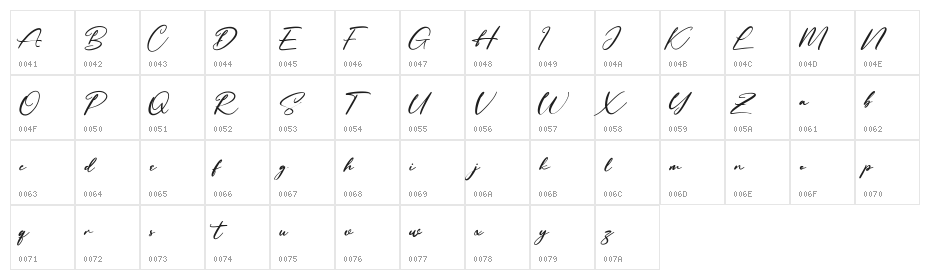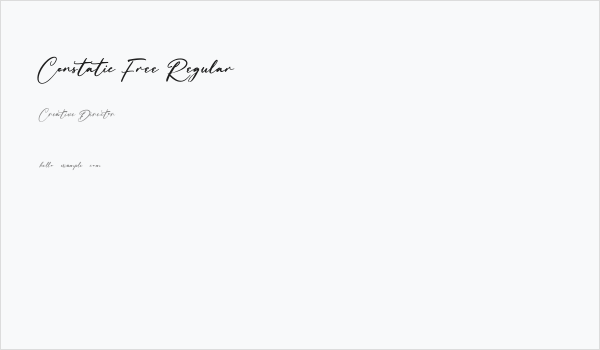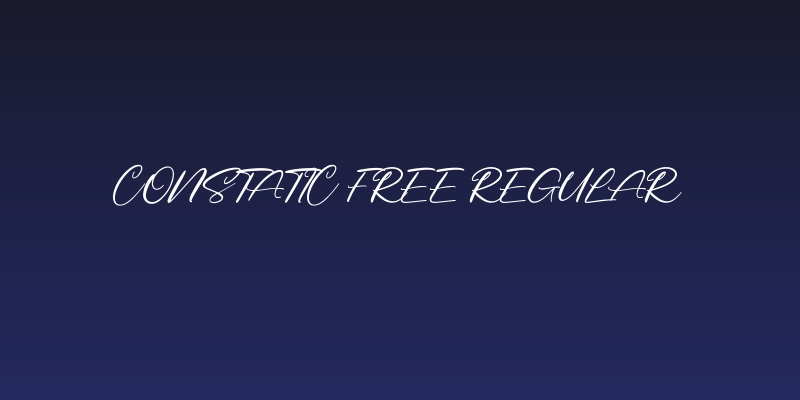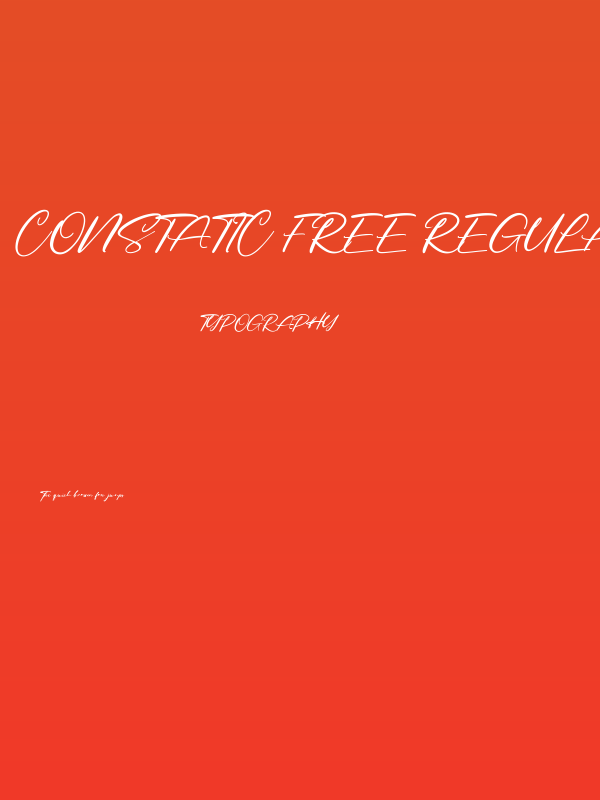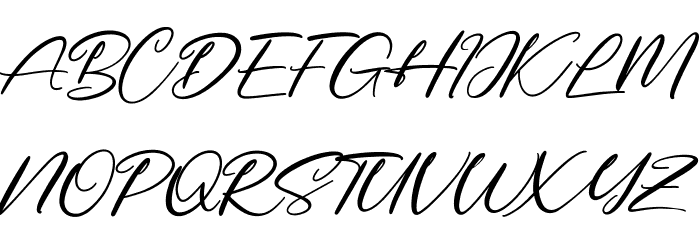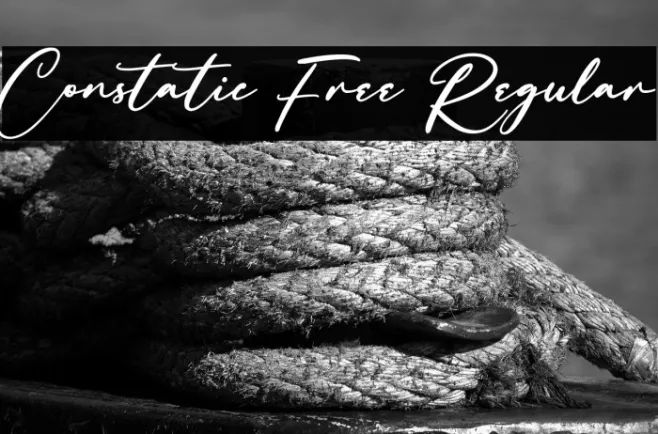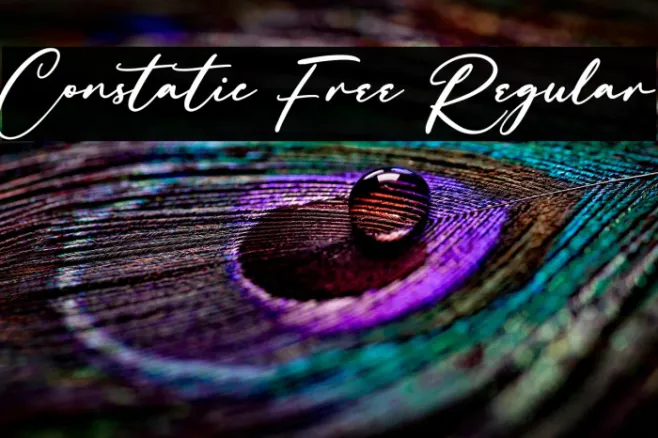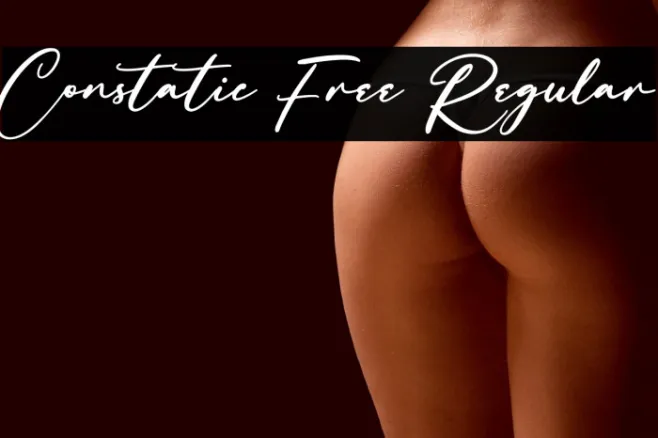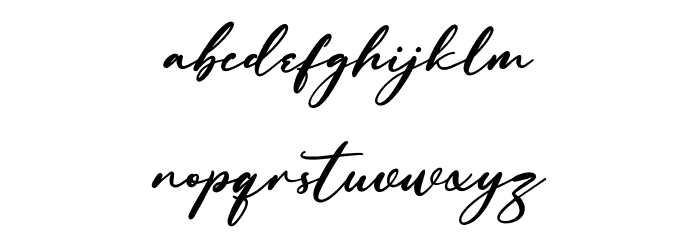
Constatic Free Regular Font
Constatic Free Regular Description
This font exudes elegance and fluidity with its cursive script style. The letters are interconnected, creating a seamless flow that mimics natural handwriting. The uppercase letters are bold and sweeping, while the lowercase letters maintain a consistent and graceful curve. The font's strokes vary in thickness, adding a dynamic and lively feel. It is well-suited for projects that require a personal touch or a sophisticated aesthetic. The overall appearance is both classic and modern, making it versatile for various design needs.
| Overall Style | Elegant, Modern |
| Proposed Projects | Ideal for wedding invitations, greeting cards, branding, and elegant logos. |